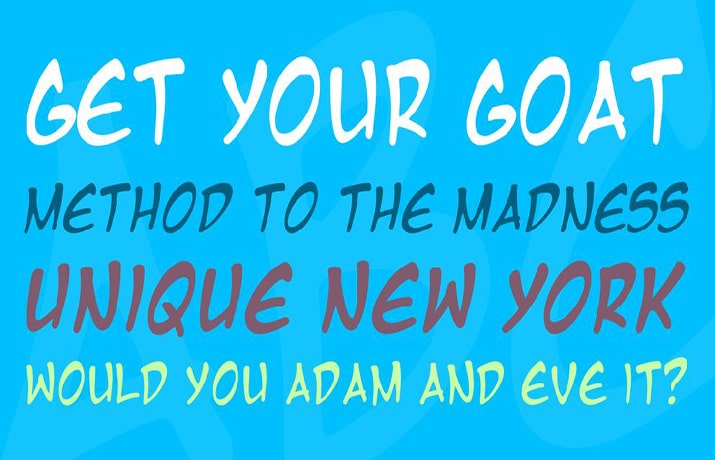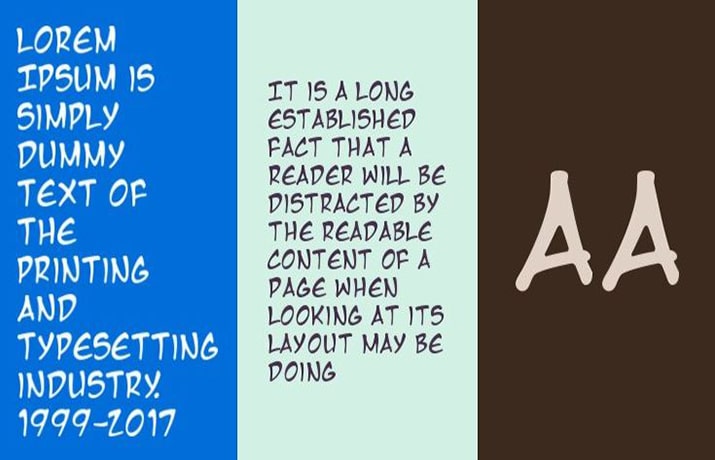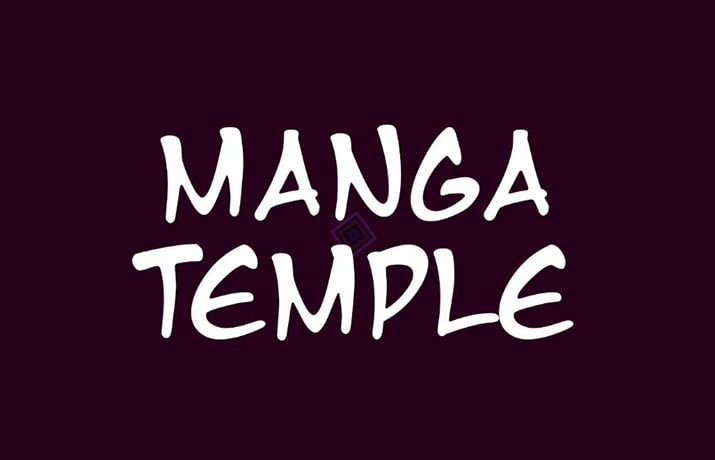
Manga Temple Font is a cool and fun comic typeface that’s guaranteed to liven up your comic book covers and cartoon titles.
Created by Blambot which is the foundry of typographer Nate Piekos and specializes in typefaces for use as lettering in both print and online comics.
All textures are made with clear strokes to which the designer adds an irregular baseline. This irregular baseline is added manually as all characters are drawn by hand.
Hence, it retains the sweetness and becomes the best choice for cartoon-related works and comics. So, if you have a project you can also benefit from it.
It can be used for banner ads, billboards, headlines, titles, logos, watermarks on photos, comic covers, printing cards, book covers, comic books, printing, special events, etc. It would also be a great idea to use it for game posters or movie posters.
Manga Temple Font comes in three different variants that possess True Type features. This font contains 104 defined characters and 84 unique glyphs.